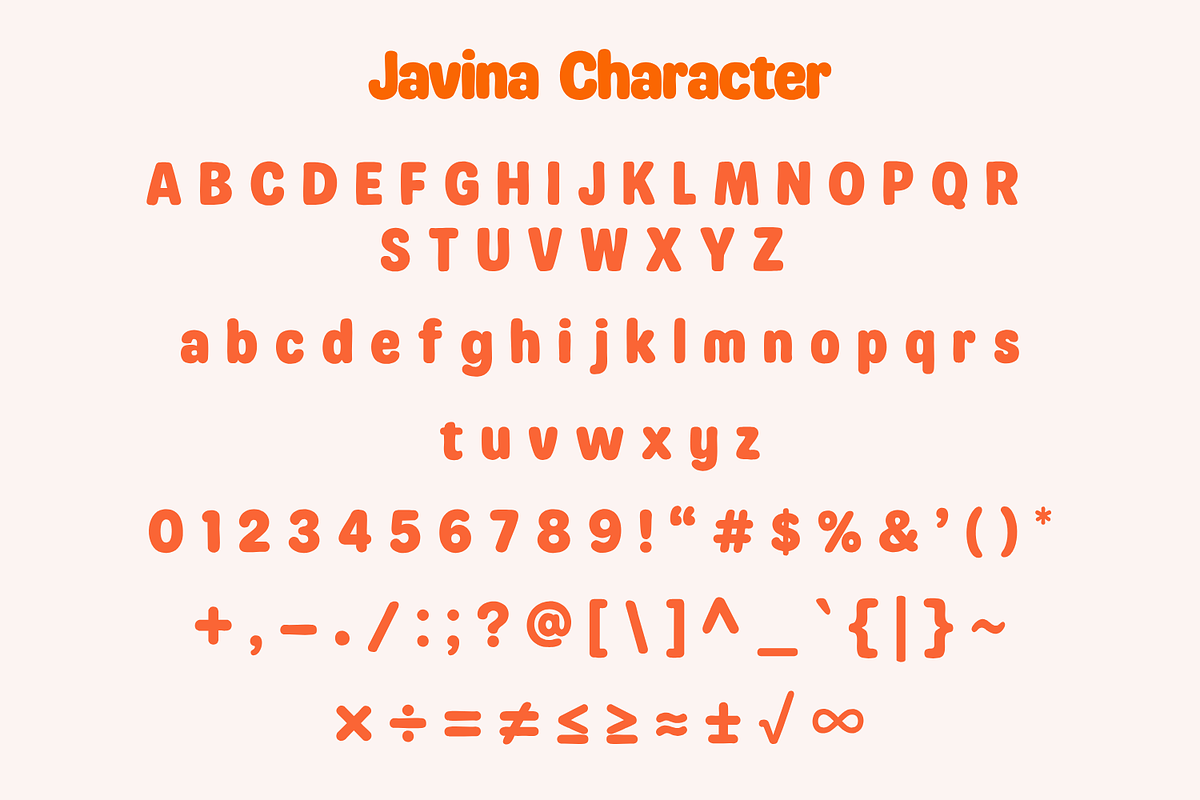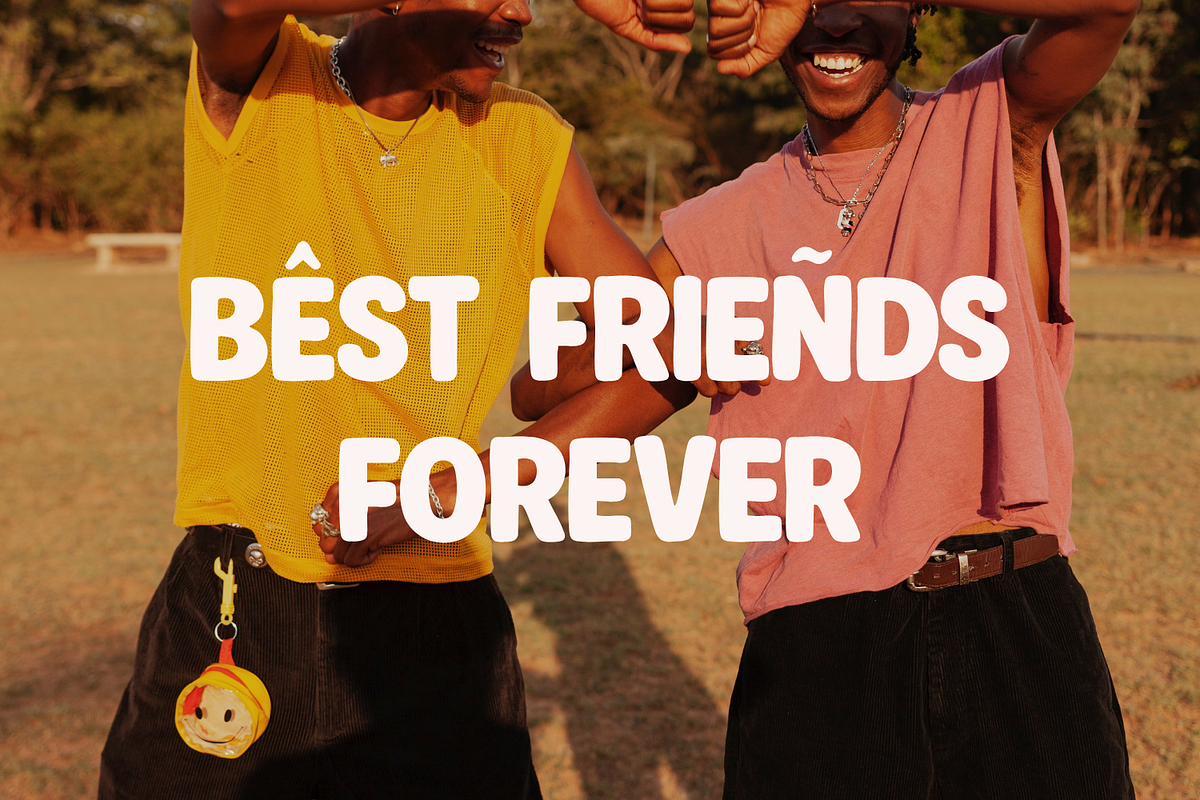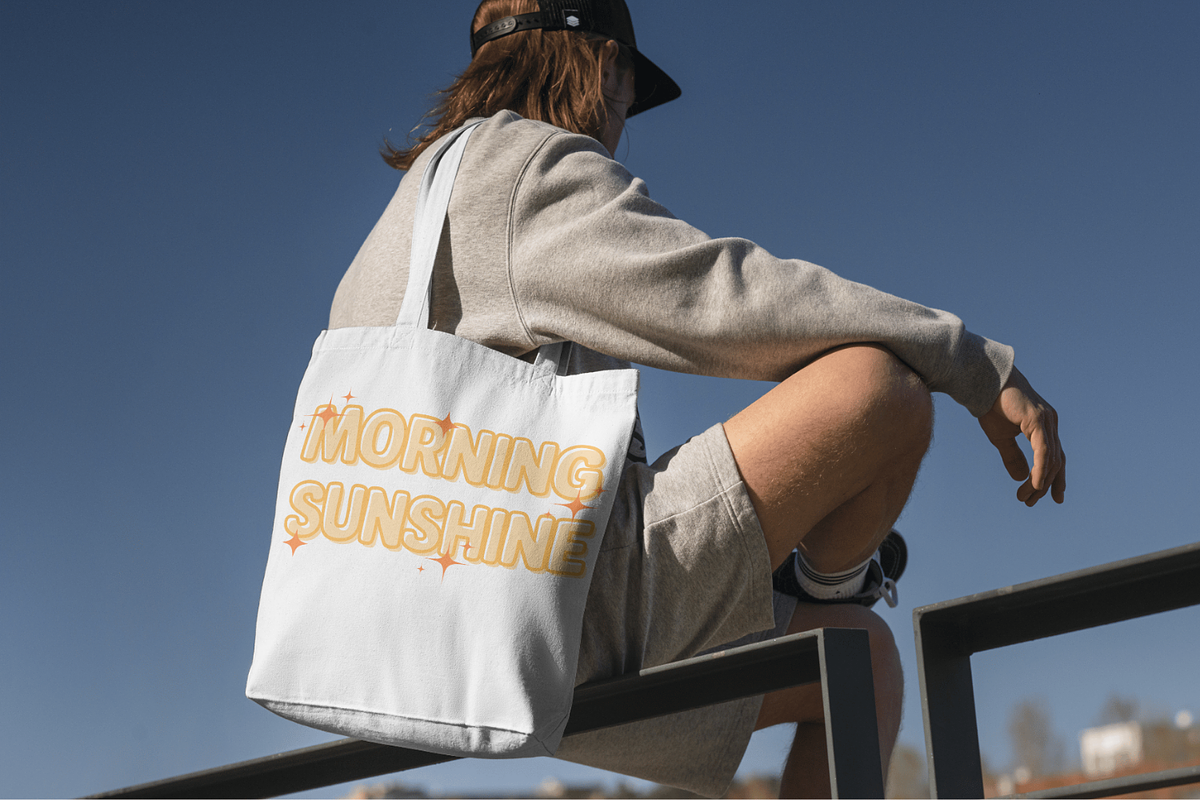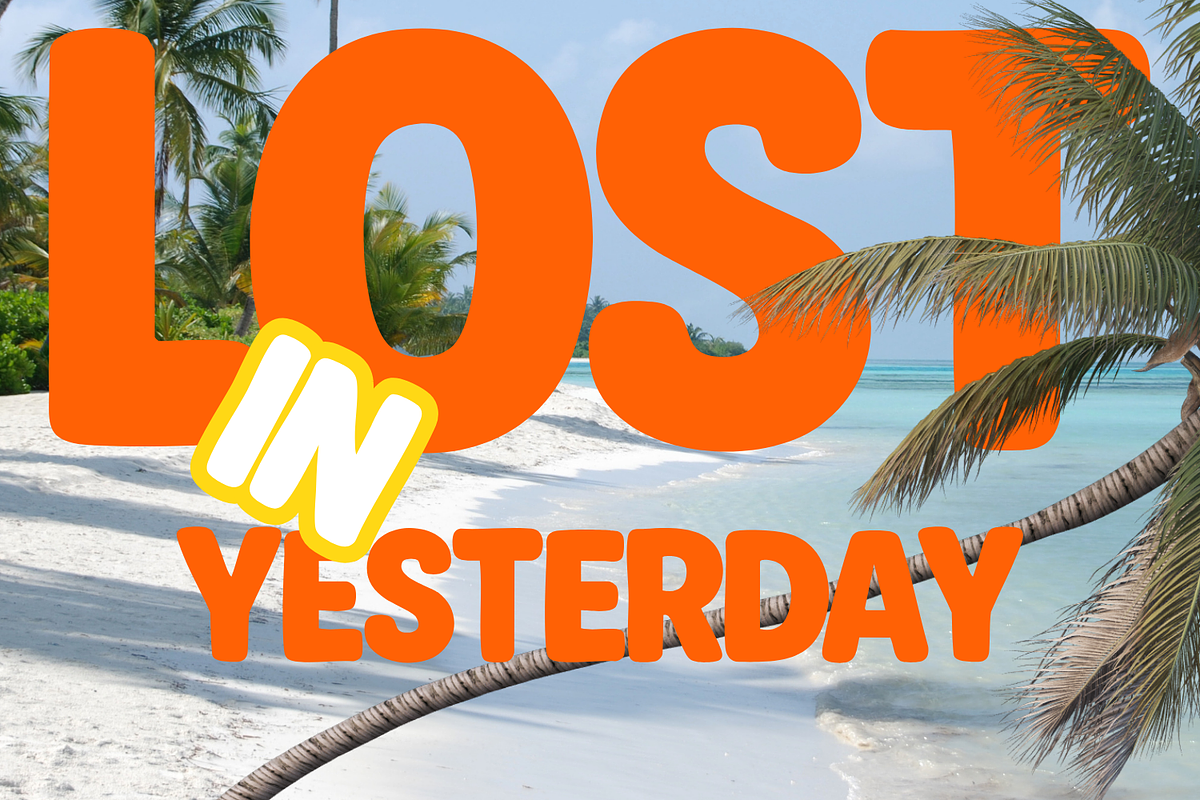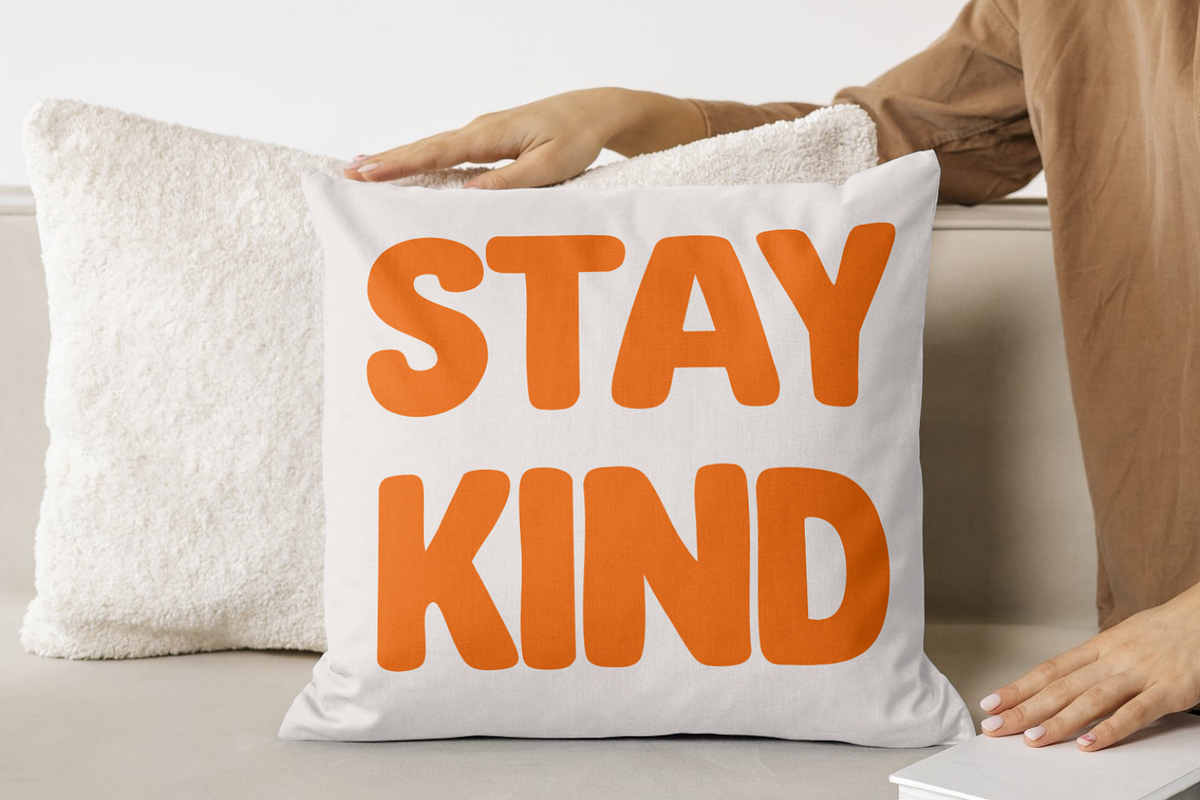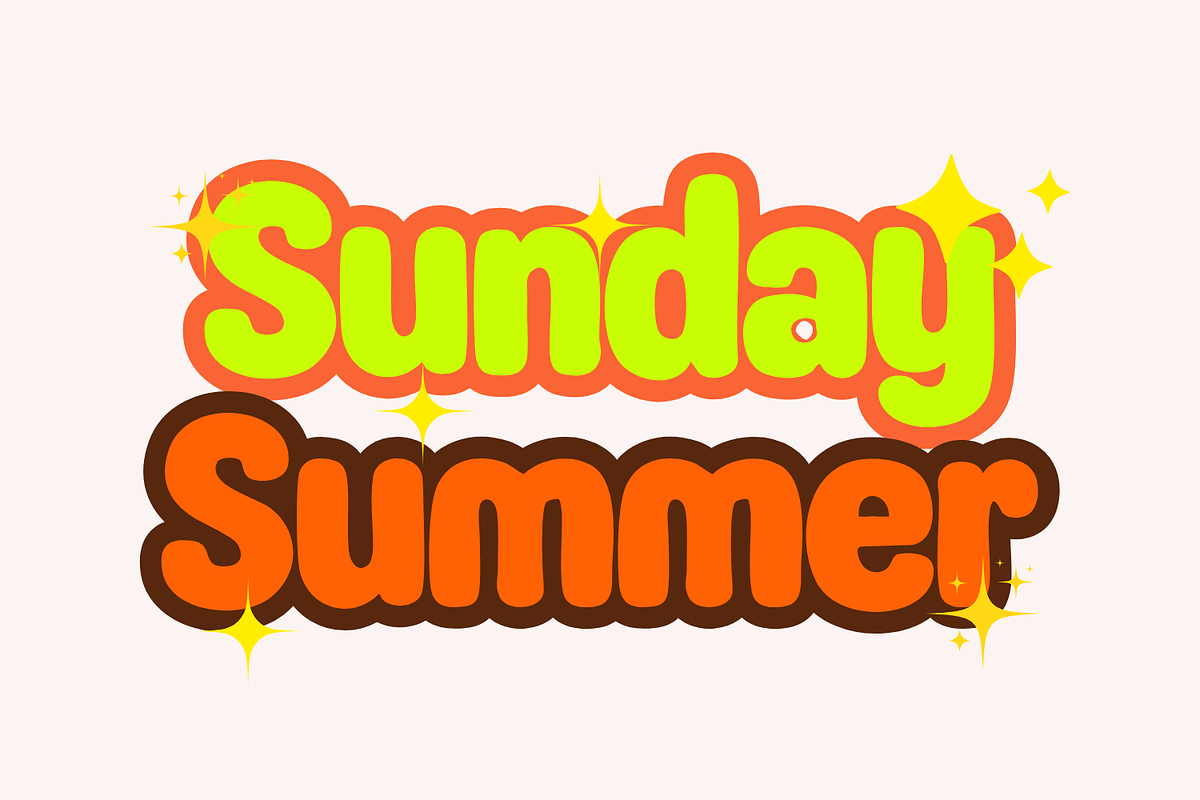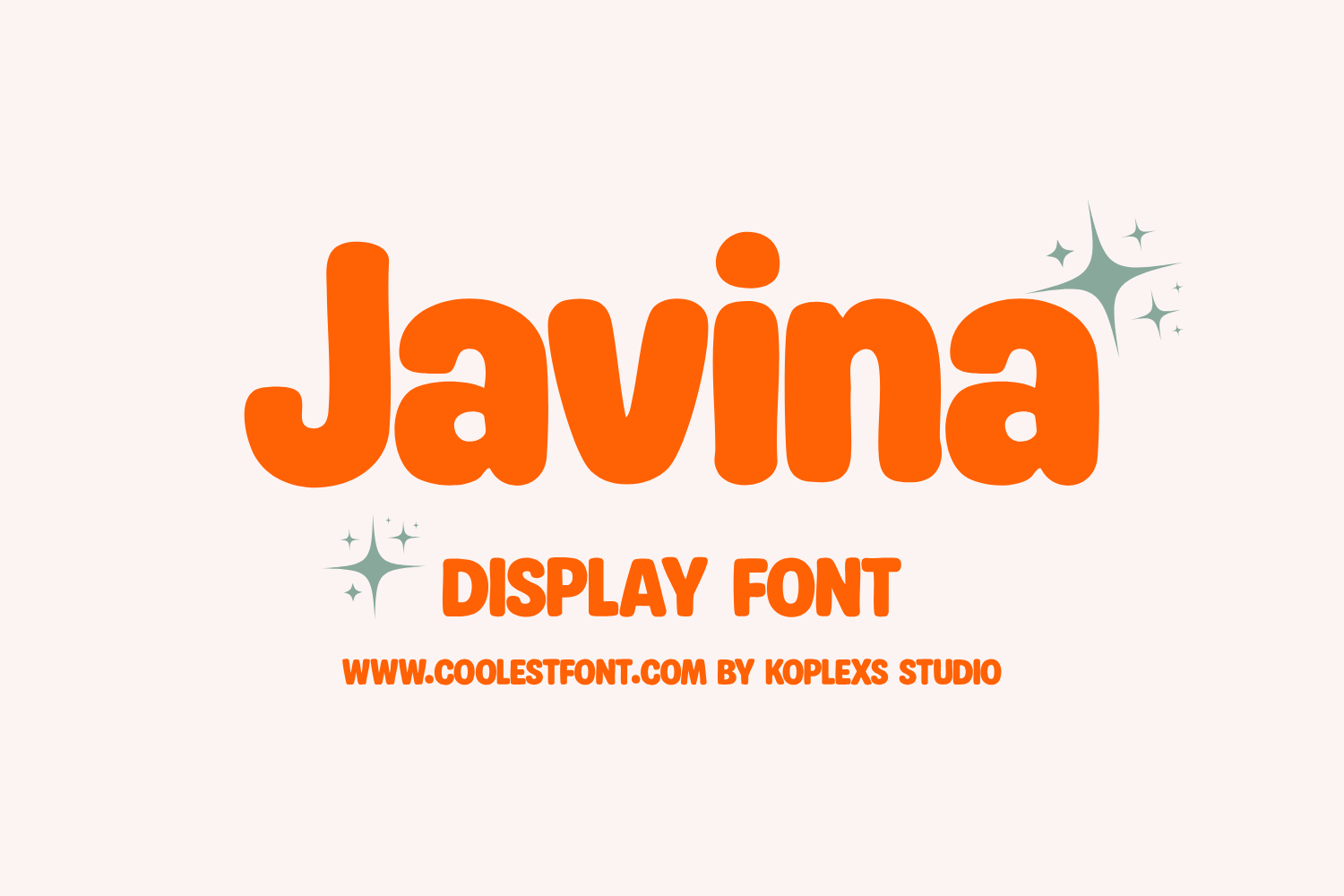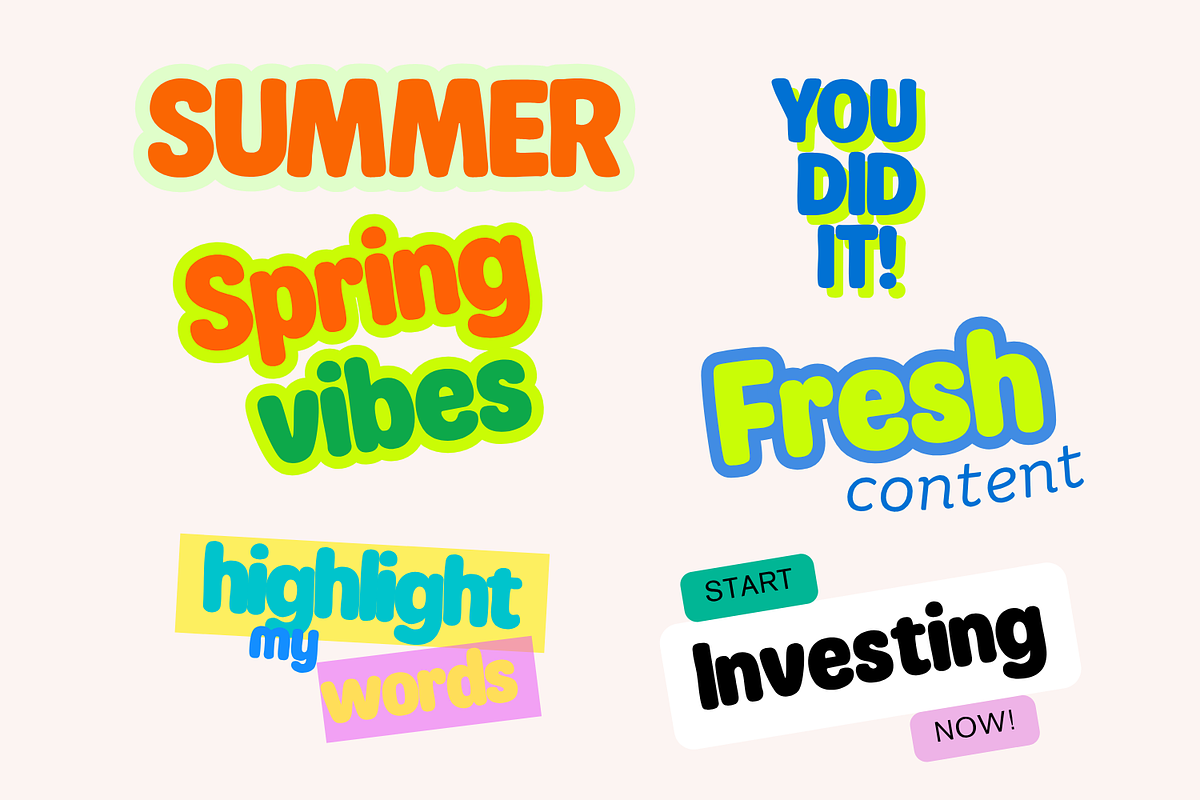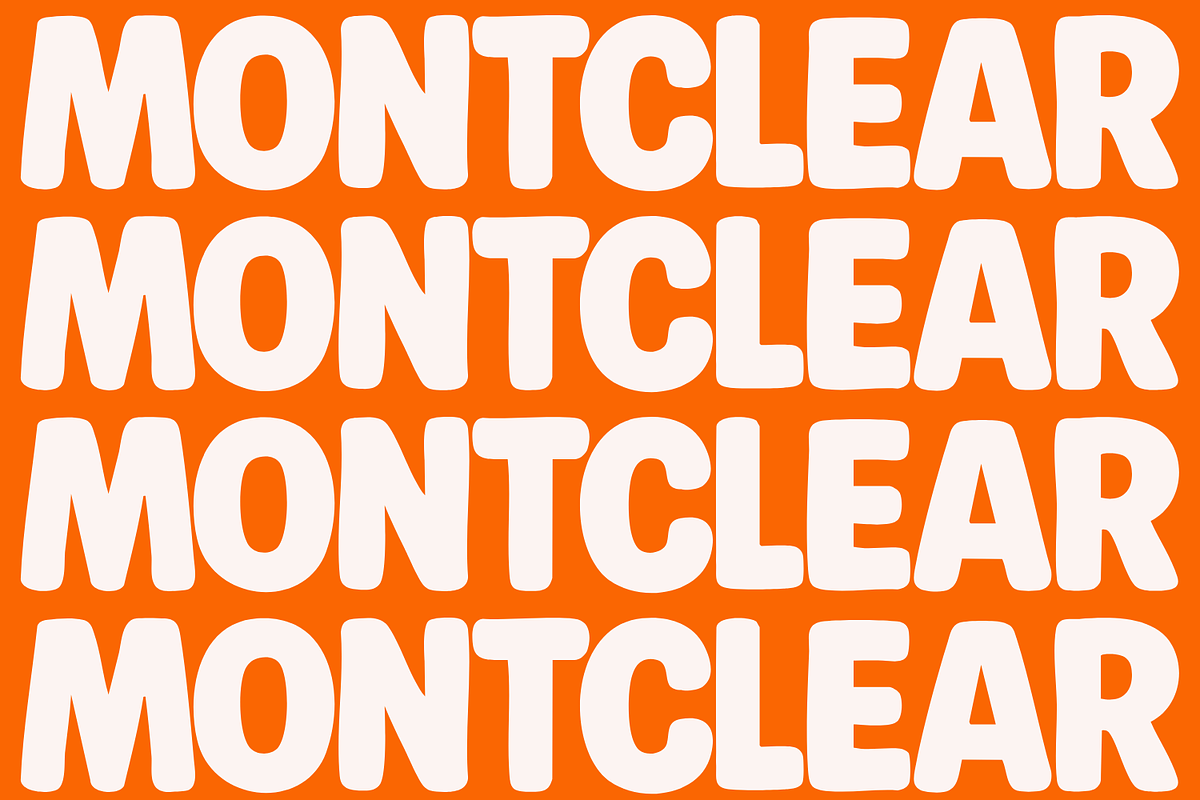
Javina Fun Display Font
Javina – Playful Display Font
Say hello to Javina, a bold and bubbly display font made to brighten up your design world! With thick, rounded curves and a fun retro attitude, Javina adds instant personality to any project — whether you're working on vintage logos, product packaging, kids’ designs, or bold headlines.
- Full Uppercase & Lowercase
💖 Why You'll Love It: Javina Font was crafted with fun in mind — ideal for projects that need a joyful, expressive font with strong visual presence. Whether you're designing for a playful brand or just want your message to pop, Javina gets the job done in style.